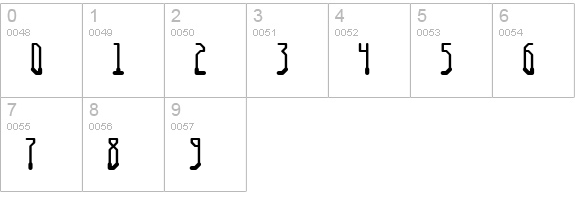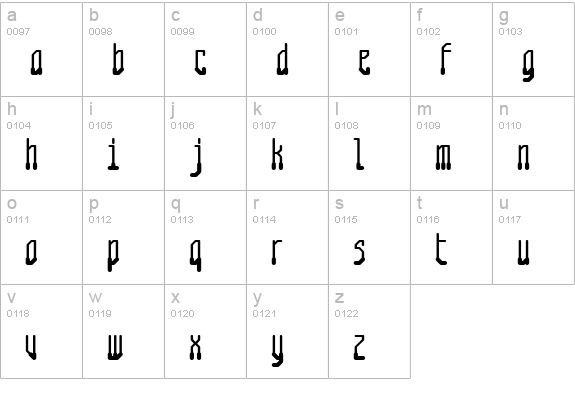
ZenoPotion AOE Font Details
ZenoPotion AOE font is a striking and dynamic typeface that is sure to capture attention with its bold and unique design. This font exudes a sense of energy and creativity, making it perfect for projects that require a touch of flair. With its eye-catching aesthetics and modern appeal, ZenoPotion AOE font is versatile and can be used for a variety of design purposes, from branding to marketing materials. What sets ZenoPotion AOE font apart is its ability to make a statement while remaining highly readable and accessible. Whether used in headlines, titles, or body text, this font adds a touch of sophistication and style to any project. Its sleek lines and intricate details give it an edge that is sure to impress. And the best part? ZenoPotion AOE font is freely available to download at FontsMarket.com. This means that you can easily incorporate this stunning font into your designs without any cost involved. Don't miss out on the opportunity to elevate your projects with this captivating and unique font. Download ZenoPotion AOE font today and let your creativity shine!